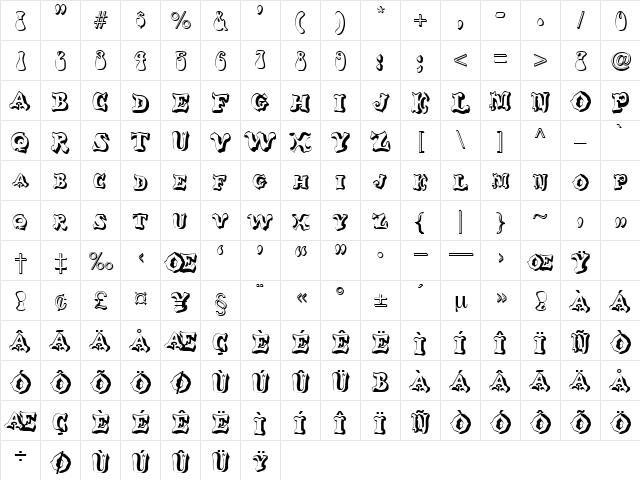
Balduin Regular Free Font
Balduin Regular
Design Context for Balduin
Balduin is a composed and adaptable typeface that performs quietly and consistently across a wide range of design contexts.